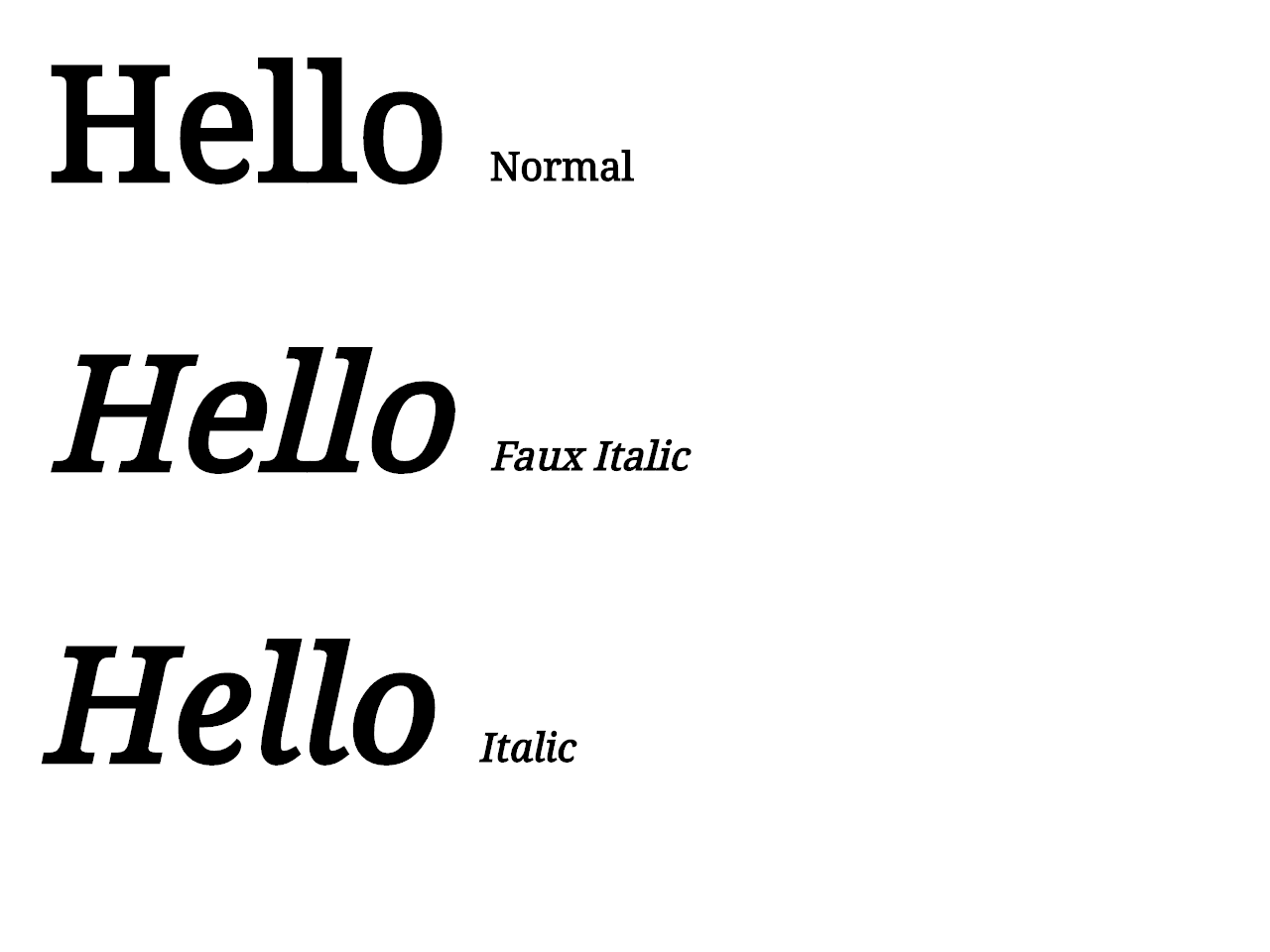
Css Font Italic Angle. Italic;} </style> < p > this is some text and < span class = italic > this is written with an italic font It defines the type of font we want to display.
The Browser Displays An Italic Font Style:
} this property accepts one of three possible values: (note that css also allows a stylesheet to disallow fake bold, fake italic, and now fake smallcaps too). We have a variety of options to set it to italic text.
2 Ways To Italicize/Tilt Text In Adobe Illustrator.
Ff0000;} </style>css</strong> can be used together in one document but it’s not recommended. The css value italic is used to italicize the text. Show activity on this post.
The Value Italicof This Css Property Used To Italicize The Text.
Inherits this property from its parent element. You can simulate a custom slant with css3 skew transformations (although it will not look as great as a real italic font). It defines the type of font we want to display.
If The Font You Choose Already Has The Italic Variations, Great, You Can Italicize Text With A Few Clicks.
This property has three values: It helps to make a better user experience. It is the same as 700.
Sets This Property To Its Default Value.
While slant can be important to the design of an italic, is easy to notice, and can even be done with some limited success using an automatic filter, it is not the only variable that you can use to. But we can't guarantee that, and the css spec needs to give guidance on what to do when an oblique font is requested (with a given angle) and no variable font with a slnt axis is in the font stack, so it has to be synthesized. This is my css code: